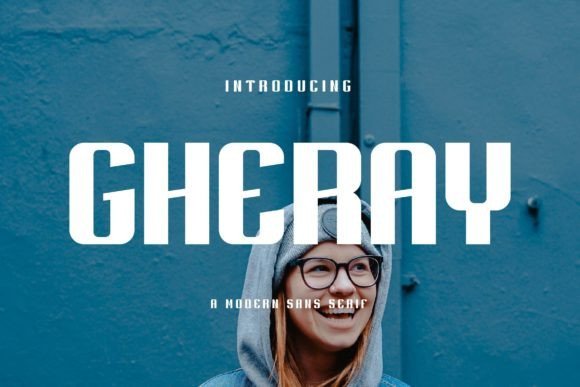
The Birth of a New Design Era: Gheray Font
Have you ever stared at a blank page, surrounded by endless possibilities, and suddenly felt the spark of creativity ignite within you? That’s exactly what happens when you discover the perfect font to bring your ideas to life. For designers seeking a versatile and elegant solution, the Gheray Sans Font Typeface is the answer to their prayers.
Created to inspire the creation of stunning templates, brochures, and logos, Gheray Font is the perfect tool for designers who crave simplicity and sophistication. With its minimalist design and multilingual support, this font typeface is an invaluable asset for any creative project. Whether you’re working on a beauty design, crafting an elegant invitation, or developing a branding strategy, Gheray Font is the perfect companion to bring your vision to reality.
Gheray Font Key Features
- Font Family: Gheray is a sans-serif typeface, suitable for body text and titles.
- Unique Characteristic: Gheray Font features a clean, modern design with a subtle geometric touch, making it ideal for digital and print materials.
- Language Support: Gheray Font supports a wide range of languages, including Latin, Cyrillic, and Greek scripts.
Gheray Font Review
As a designer, I was excited to try out the Gheray Font, and I must say it has some great features. ✨ First of all, the font’s unique and modern design caught my eye. It’s perfect for creating a sophisticated and elegant look for your designs. ✨ The font’s clean lines and minimalistic approach make it a great choice for modern branding and marketing materials.
Here are some specific features that I liked about the Gheray Font:
- ✨ Unique and modern design
- ✨ Clean lines and minimalistic approach
- ✨ Perfect for modern branding and marketing materials
- ✨ Great for creating a sophisticated and elegant look
- ⚠️ Limited character set
- ⚠️ Not suitable for body text due to limited font sizes
- ⚠️ Can be difficult to read at very small font sizes
Overall, I would say that the Gheray Font is a great choice for designers who want to create a modern and sophisticated look. While it has some limitations, its unique design and clean lines make it a great addition to any design toolkit.
The Gheray Font is ideal for:
- Logo design
- Brand identity
- Print materials
- Digital marketing
Alternatives to Gheray Font for Designers
Montserrat is a sans-serif font designed by Julieta Ulanovsky. It’s perfect for use in headings and titles due to its clean and modern design. Montserrat is more versatile than Gheray Font as it comes in a wide range of weights and styles, making it suitable for various design projects.
Nunito
Nunito is a sans-serif font designed by Vernon Adams. It’s ideal for use in body text due to its friendly and approachable feel. Nunito is more rounded than Gheray Font, making it a better choice for designs that require a softer touch. However, it lacks the modern edge that Gheray Font provides.
Lato is a sans-serif font designed by Łukasz Dziedzic. It’s suitable for use in both headings and body text due to its clean and elegant design. Lato is more formal than Gheray Font, making it a better choice for corporate and professional designs. However, it lacks the creative freedom that Gheray Font offers.
Poppins
Poppins is a sans-serif font designed by Indian Type Foundry. It’s perfect for use in headings and titles due to its modern and elegant design. Poppins is more condensed than Gheray Font, making it a better choice for designs with limited space. However, it lacks the personality that Gheray Font provides.